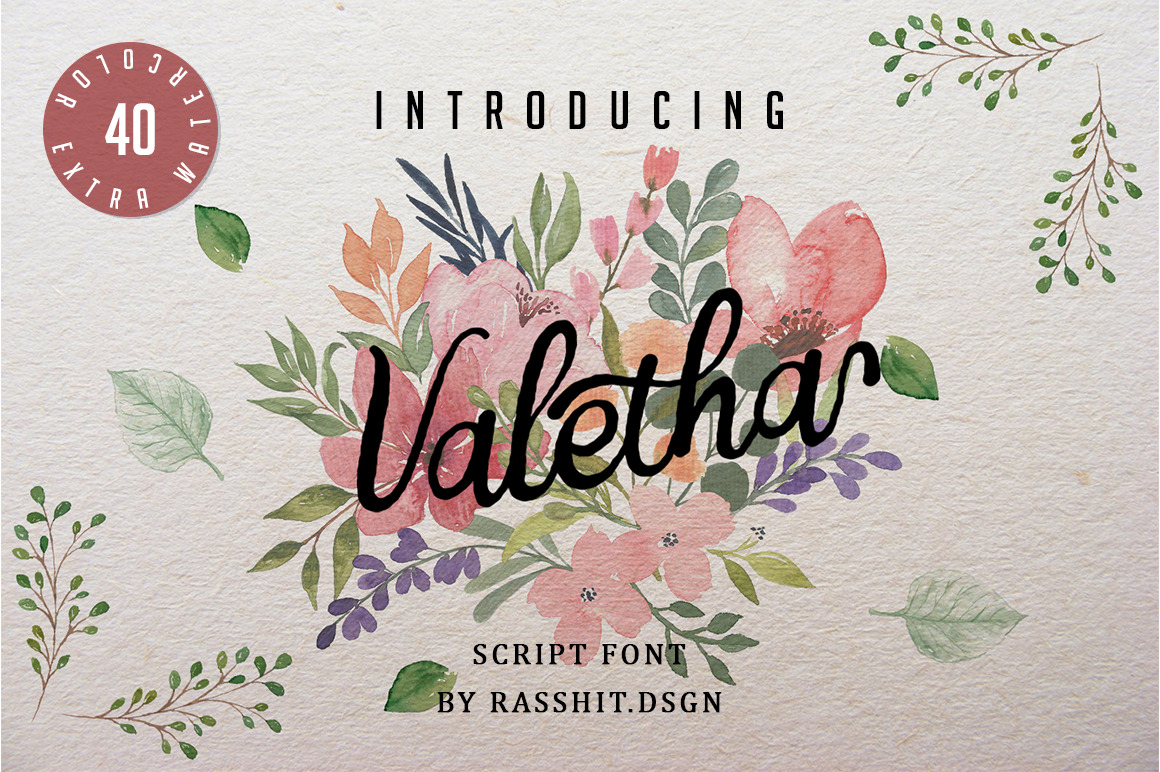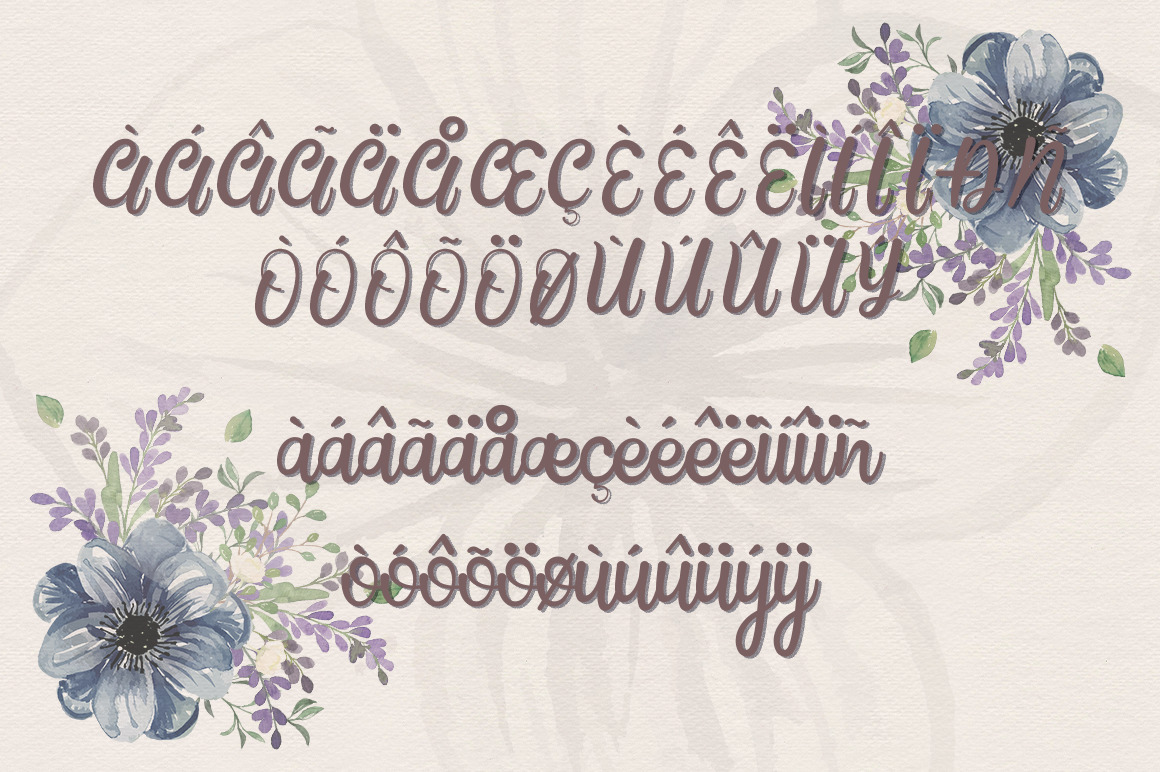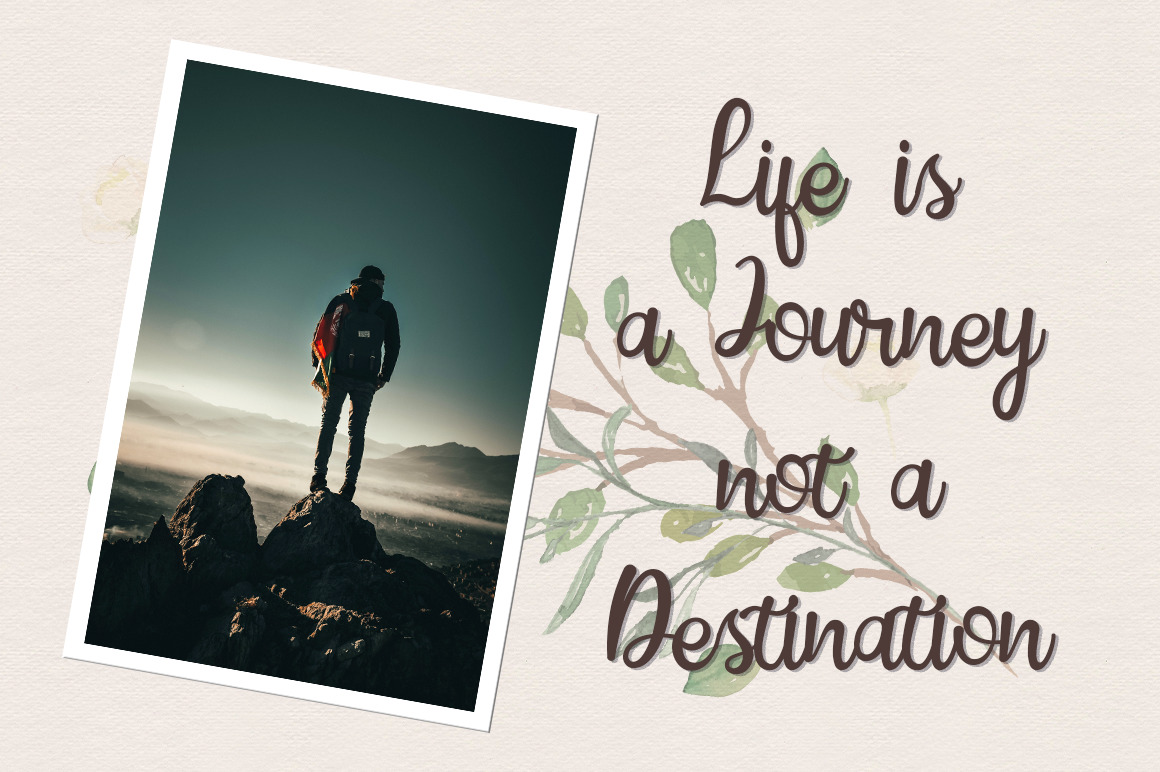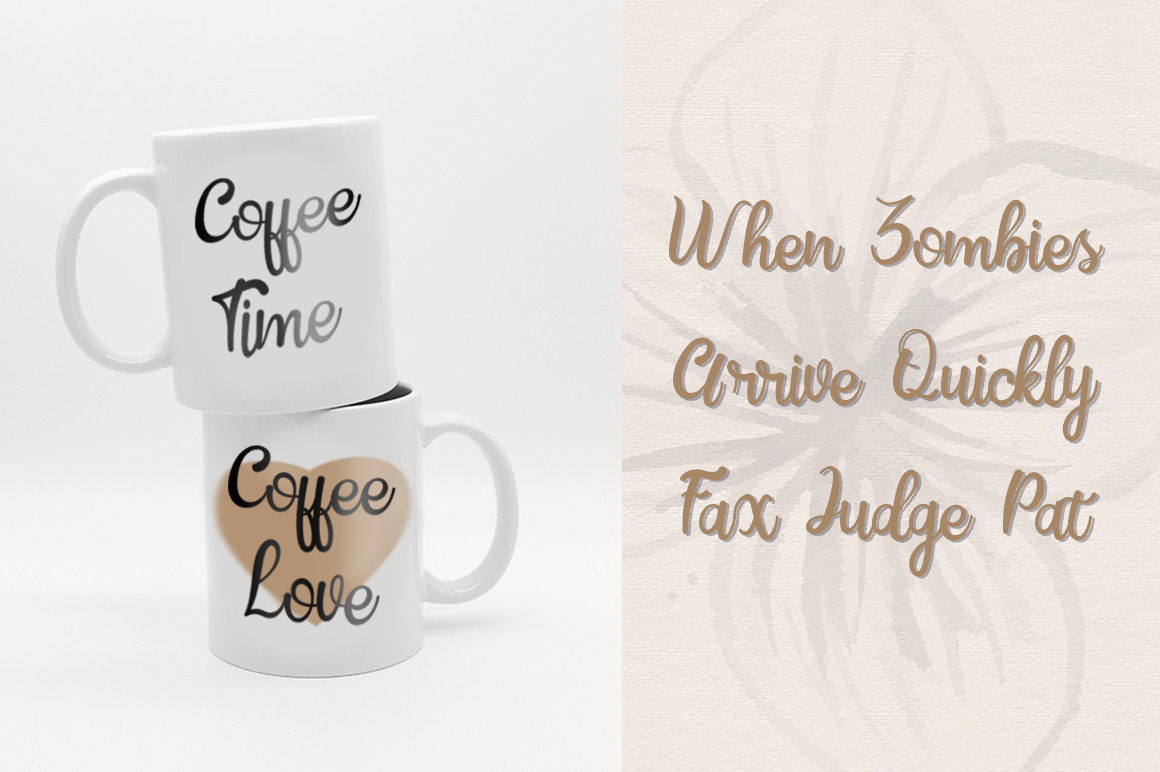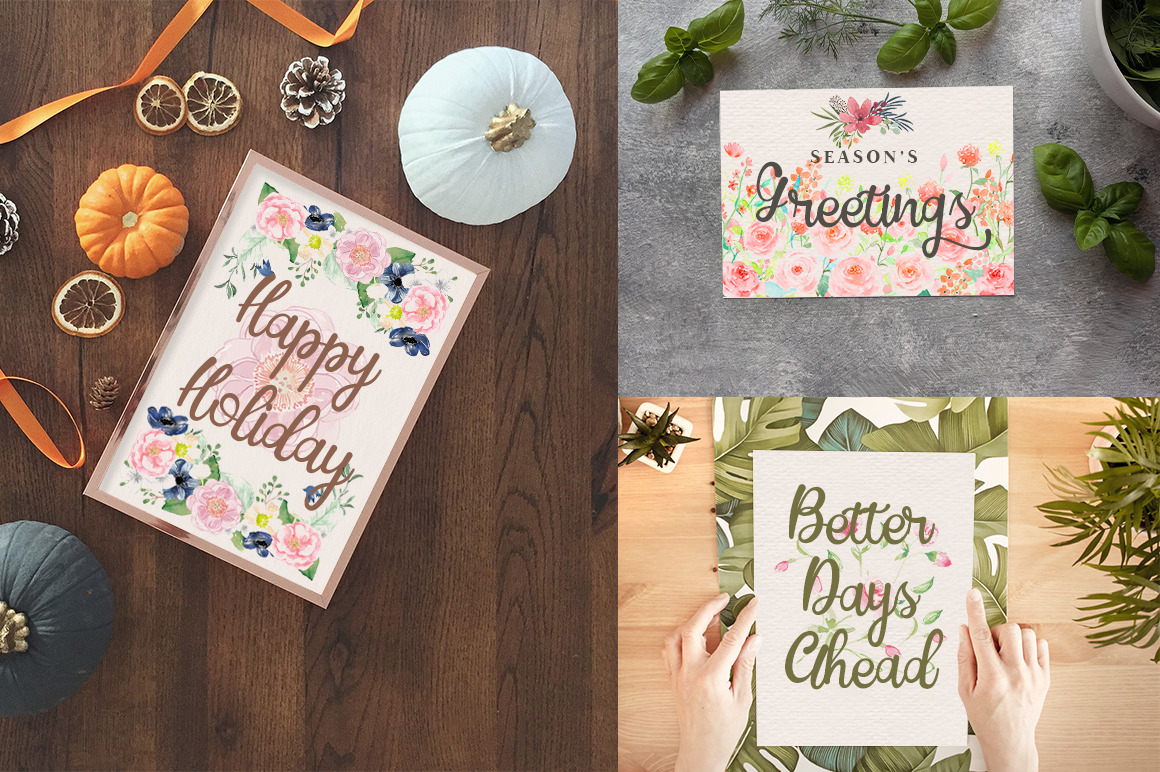
Valetha Font
Thank you for checking Valetha Script! introducing a new script font called Valetha. Script fonts are amazingly fun yet elegant, allowing you to create beautiful typography in an instant. and this font is perfect for logos, printed quotes, invitations, cards, product packaging, headers, and whatever your imagination holds. Valetha fonts are equipped with opentype futures such as alternates, stylistic sets, swash & ligatures. Of course, this font has multilingual support